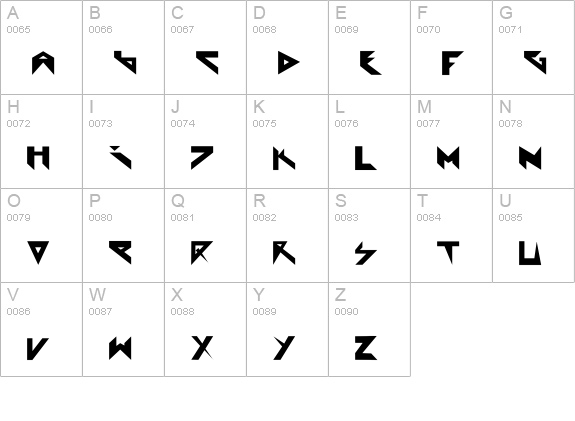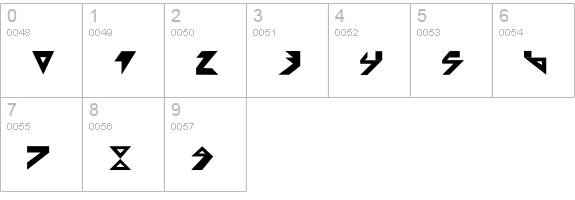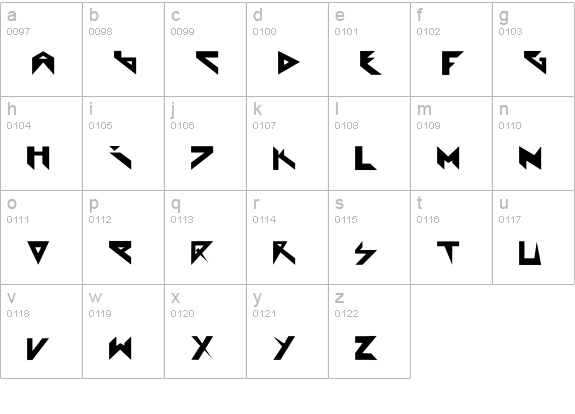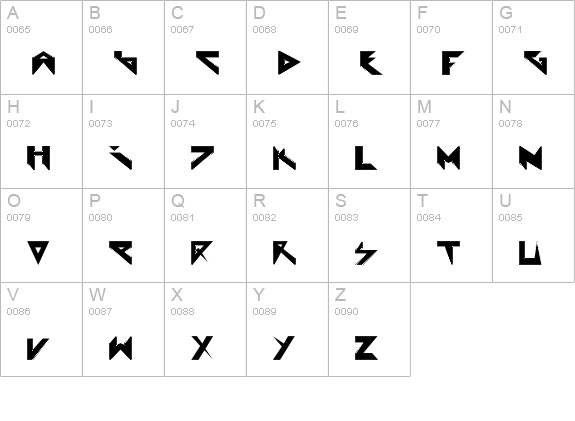
Introducing Extraterrestrial font, an otherworldly typeface that will transport your designs to a realm beyond the ordinary. This captivating font takes inspiration from the mysteries of the universe, capturing the essence of cosmic energy and futuristic elegance. With its unique and futuristic letterforms, Extraterrestrial font is perfect for projects that require a touch of otherworldly charm. Whether you're designing a science fiction book cover, creating a futuristic logo, or crafting a stellar poster, this font will bring an intergalactic flair to your work. What sets Extraterrestrial font apart is not only its captivating design, but also its accessibility. We understand the importance of making great design accessible to all, which is why we are thrilled to offer this font for free download at FontsMarket.com. Now, you can elevate your designs without breaking the bank. The Extraterrestrial font is a true gem in the vast expanse of typography, combining elegance and innovation in a way that is truly out of this world. Its clean lines, futuristic curves, and intricate details make it a versatile tool for designers of all levels. Whether you're a seasoned professional or just starting out, this font will empower you to create designs that are truly extraordinary. So, why wait? Download the Extraterrestrial font today and let your creativity soar to new heights. With this font in your toolkit, you'll have the power to captivate your audience, transport them to new dimensions, and leave a lasting impression. Remember, this font is freely available to download at FontsMarket.com, so don't miss out on the opportunity to add a touch of extraterrestrial magic to your designs.